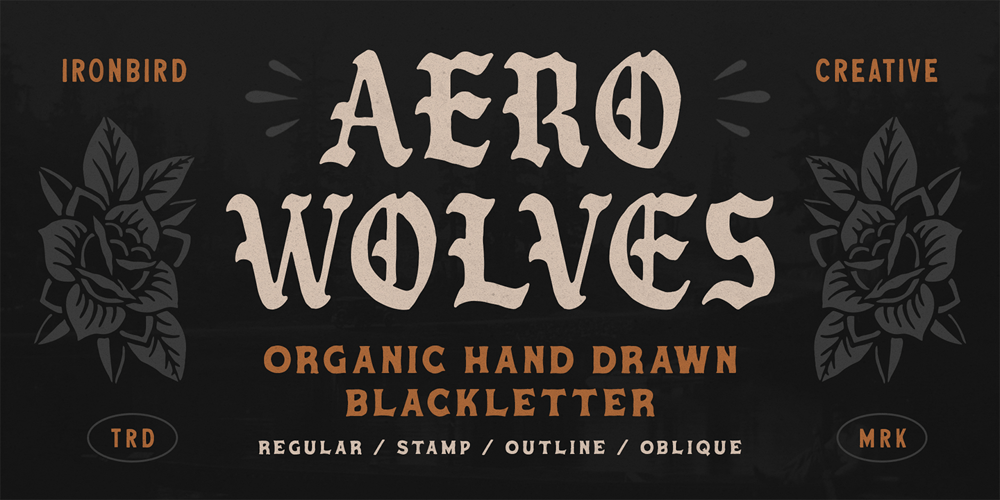
Aero Wolves
Aero Wolves font
Aero Wolves Font Family was designed by Septianto Nugroho and published by Ironbird Creative. Aero Wolves contains 6 styles and family package options. Aero Wolves is a organic blackletter with handdrawn feel. Comes with regular, stamp, oblique and outline styles. This typefaces is perfect for people looking for vintage aesthetic and dark feel. Suitable for any graphic designs such as branding materials, t-shirt, print, logo, poster, t-shirt, quotes .etcADDITIONAL INFORMATIONFor upgrading license please contact me. Upgraded licenses are required for apps, books, television, commercial exhibition, film, gaming, print on demand products, etc.We hope you enjoy the font, please feel free to comment if you have any thoughts or feedback. Thanks for purchasing and have fun!Regards,Ironbird Creative